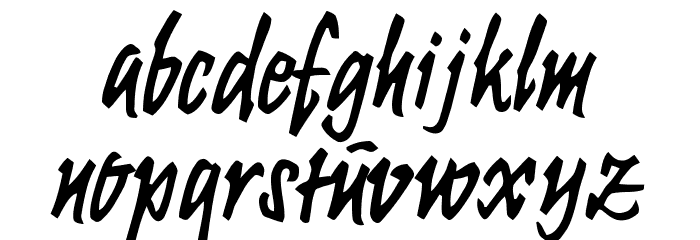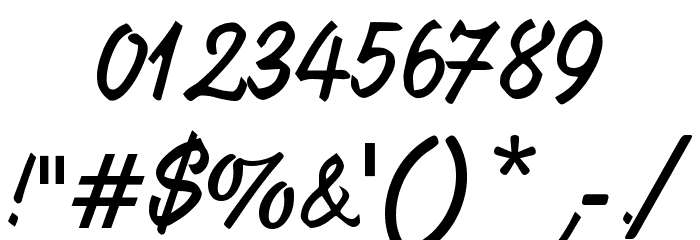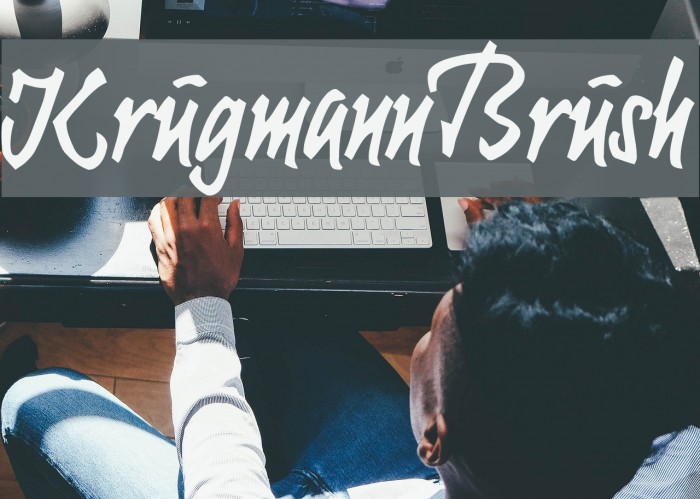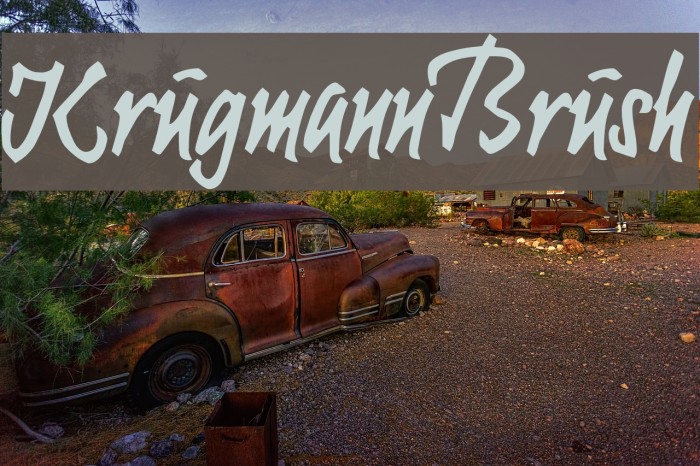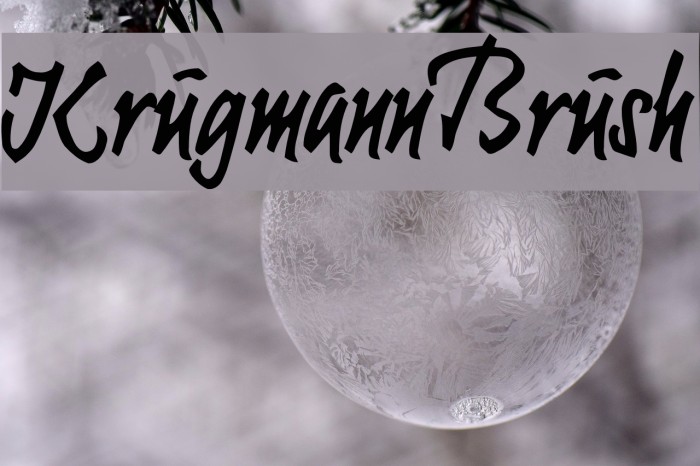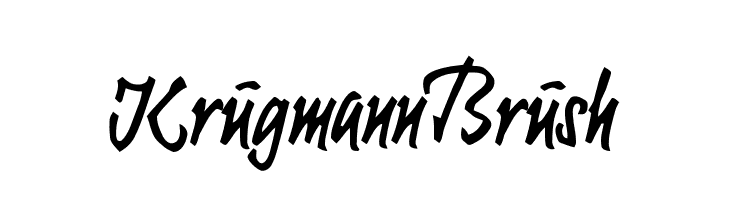
KrugmannBrush Font
This font features a dynamic and expressive brush script style, characterized by its fluid strokes and energetic movement. The letters are connected, creating a sense of continuity and flow, typical of handwritten scripts. The uppercase letters are bold and slightly slanted, adding a sense of urgency and flair. The lowercase letters maintain a consistent rhythm, with some characters featuring distinctive loops and curves. The numbers are equally expressive, maintaining the same brush-like quality. Special characters are integrated seamlessly, ensuring versatility in various design contexts. The overall appearance is both artistic and legible, making it suitable for creative and informal applications.
A dynamic and expressive brush script font with fluid, connected strokes.